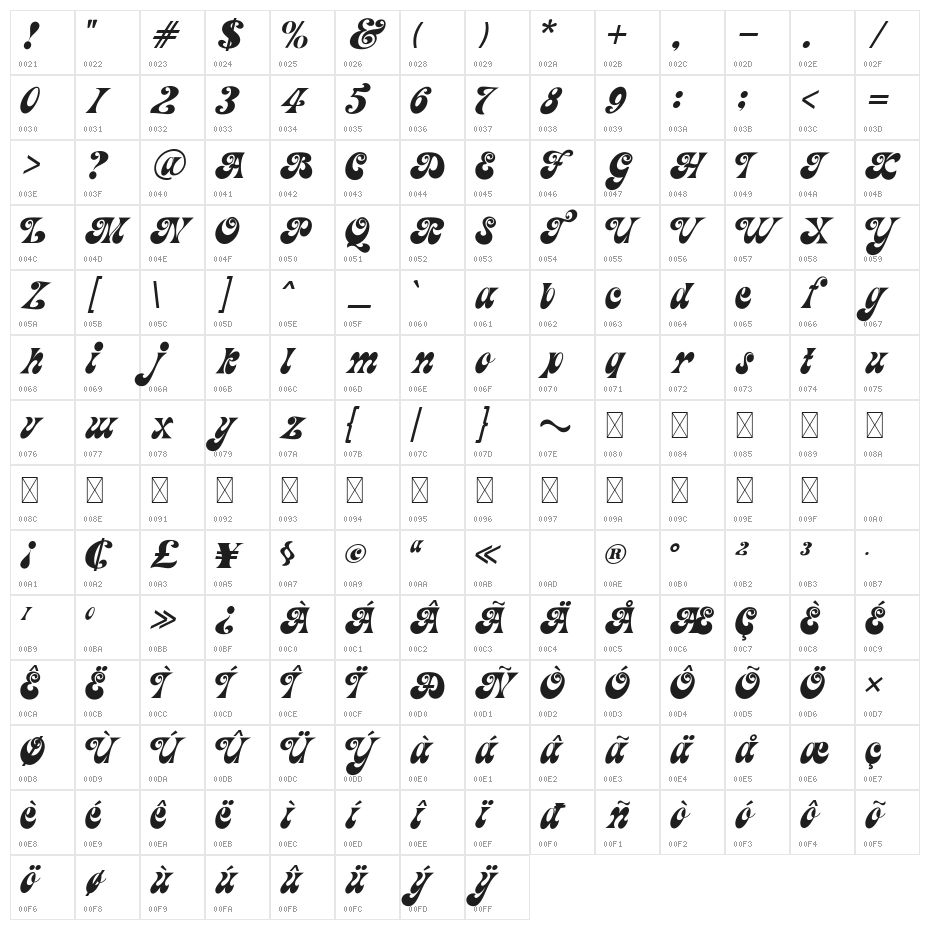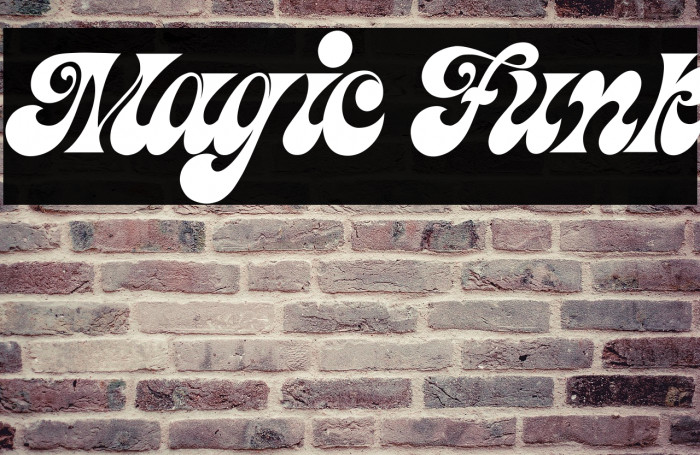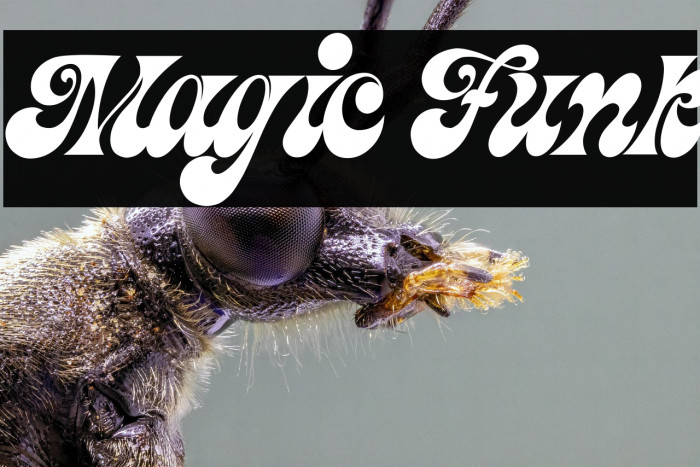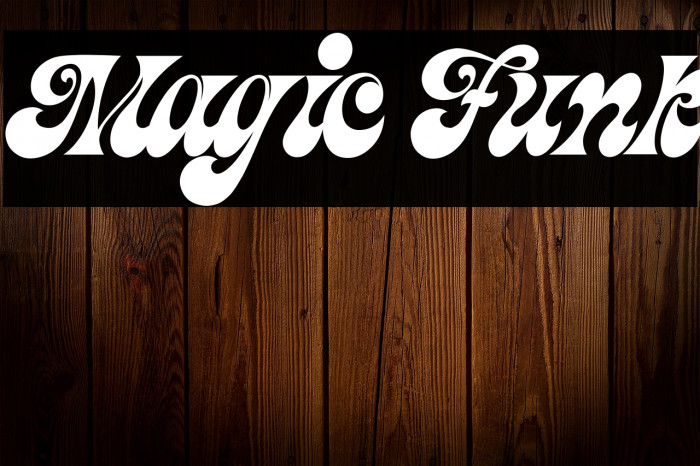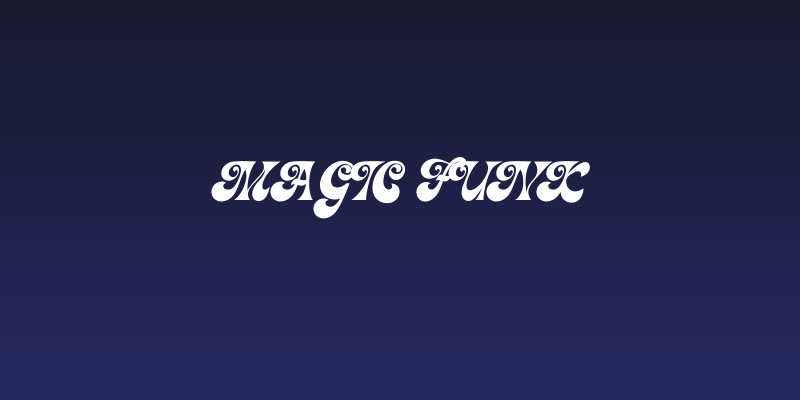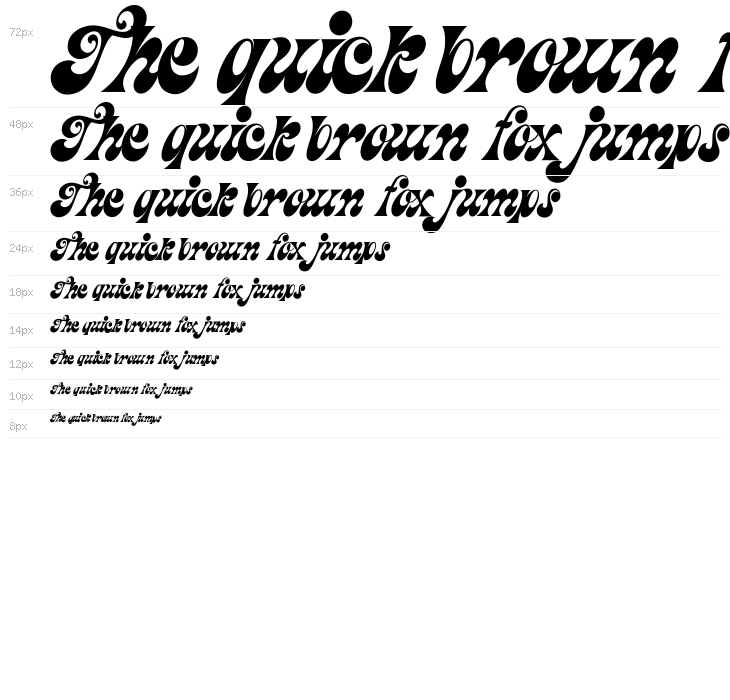
Magic Funk Font
| Stil general | Retro, Funky, Decorative |
| Proiecte propuse | Ideal for poster designs, album covers, branding projects, and any creative work that requires a bold, eye-catching typeface. |